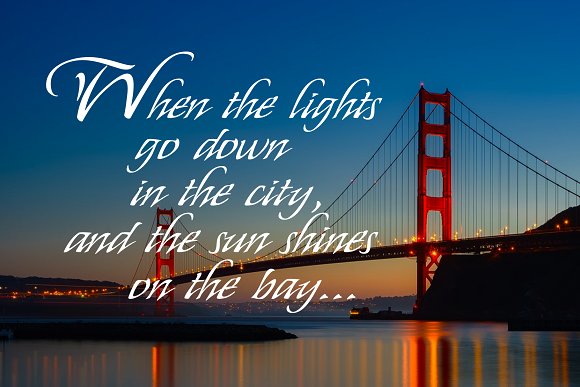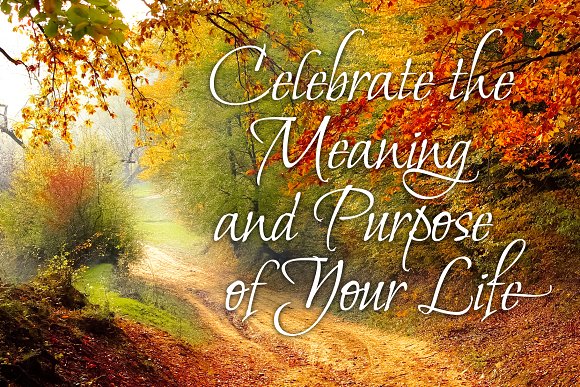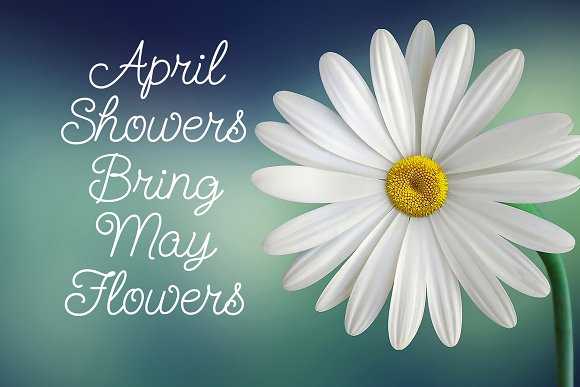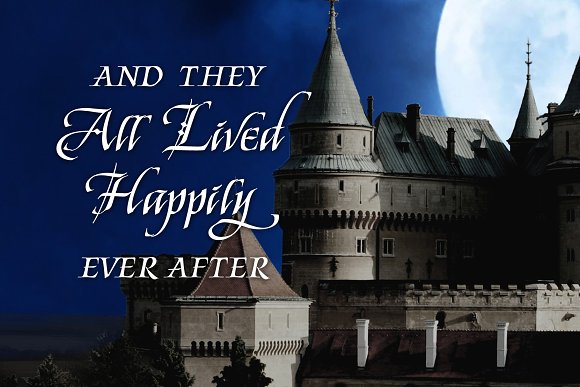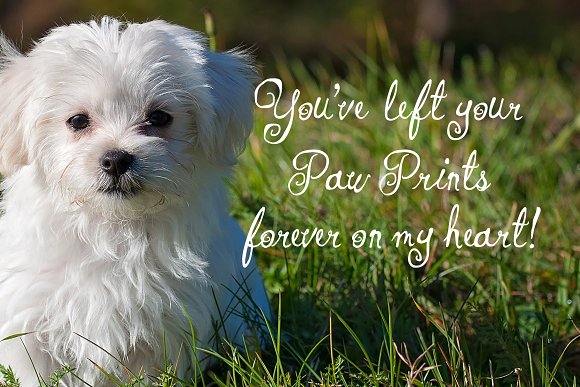
Smorgasbord Script Font
It’s an all occasion Smorgasbord! In this collection you get 17 fonts originally designed for the social expression industry— all ranging from juvenile/cute to masculine, to formal. Whether you want to send a nice note of thanks, or create a poster for a Renaissance Festival, you can find the right look in Smorgasbord.